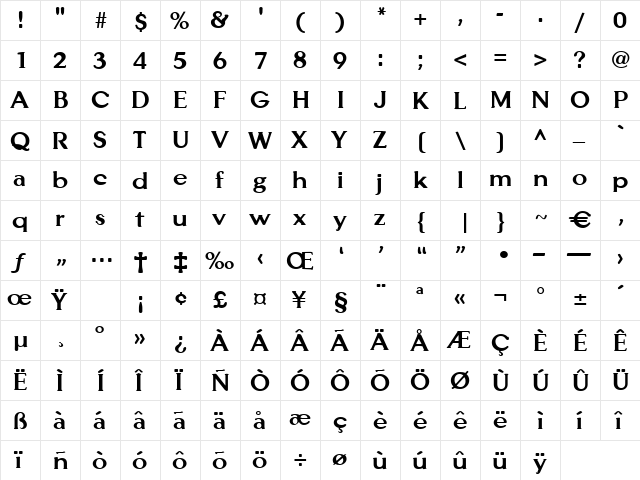
Artois Regular
Design Context for Artois Typeface
Artois takes a measured approach to typography — its balanced proportions and neutral character make it a reliable workhorse for both digital and print work.